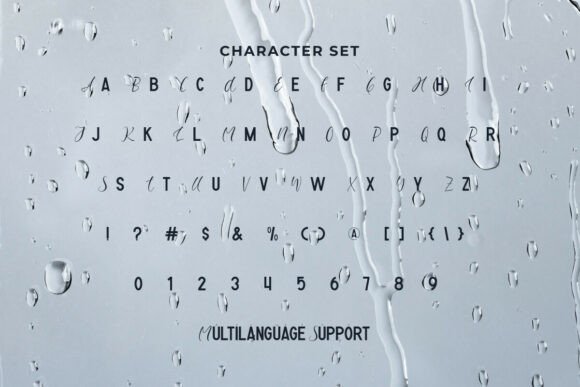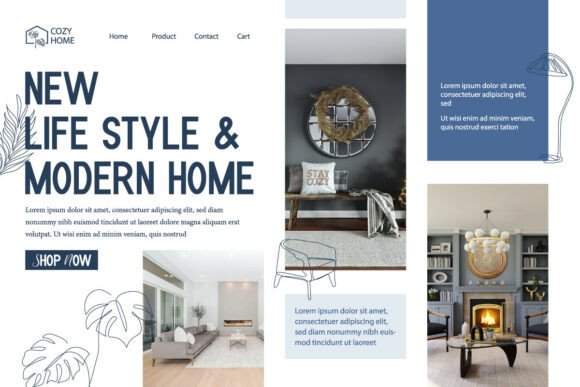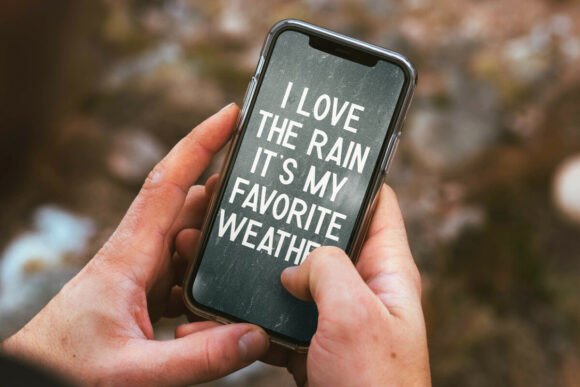
Hailstone Font: Elevate Your Designs with a Modern Combination Display Font
Are you looking for a font that can add a touch of modernity and sophistication to your designs? Look no further than Hailstone Font, a stunning combination display font designed by RaisProject. This versatile font is perfect for a wide range of design applications, from branding and advertising to packaging and publishing.
What is Hailstone Font?
Hailstone Font is a modern combination display font that is designed to make a statement. Its unique and stylish letterforms make it perfect for adding a touch of elegance and sophistication to any design. The font includes a complete set of basic uppercase and lowercase characters, numerals, and a wide range of punctuation marks, making it suitable for a variety of design applications.
What Can I Use Hailstone Font For?
Hailstone Font is an incredibly versatile font that can be used for a wide range of design applications, including:
- Brand image and logo design
- Cover design and publishing
- Custom design and illustration
- Flyers and brochures
- Invitations and event design
- Labels and packaging design
- Magazine and newspaper design
- Marketing materials and advertising
- Menus and restaurant design
- Posters and signage
- Product packaging and design
- Quotes and typography
- Stationery and letterhead design
- Website design and development
Industries That Can Benefit from Hailstone Font
Hailstone Font is suitable for a wide range of industries, including:
- Advertising and marketing
- Beauty and cosmetics
- Cafes and restaurants
- Fashion and apparel
- Home furniture and decor
- Marketing and media
- Movies and entertainment
- Printing and publishing
- Real estate and property
- Restaurants and food service
- Spa and salon
What Makes Hailstone Font Special?
Hailstone Font comes with a range of features that make it a standout font, including:
- Multilingual language support
- Complete set of basic uppercase and lowercase characters
- Numerals and wide range of punctuation marks
Why Choose Hailstone Font?
If you’re looking for a font that can elevate your designs and add a touch of modernity and sophistication, then Hailstone Font is the perfect choice. With its unique and stylish letterforms, versatility, and range of features, Hailstone Font is a must-have for any designer or craftsperson.
In conclusion, Hailstone Font is a modern combination display font that is perfect for designers and craftspersons looking to add a touch of elegance and sophistication to their designs. With its versatility, range of features, and compatibility with a range of design software, Hailstone Font is a must-have for any design project.